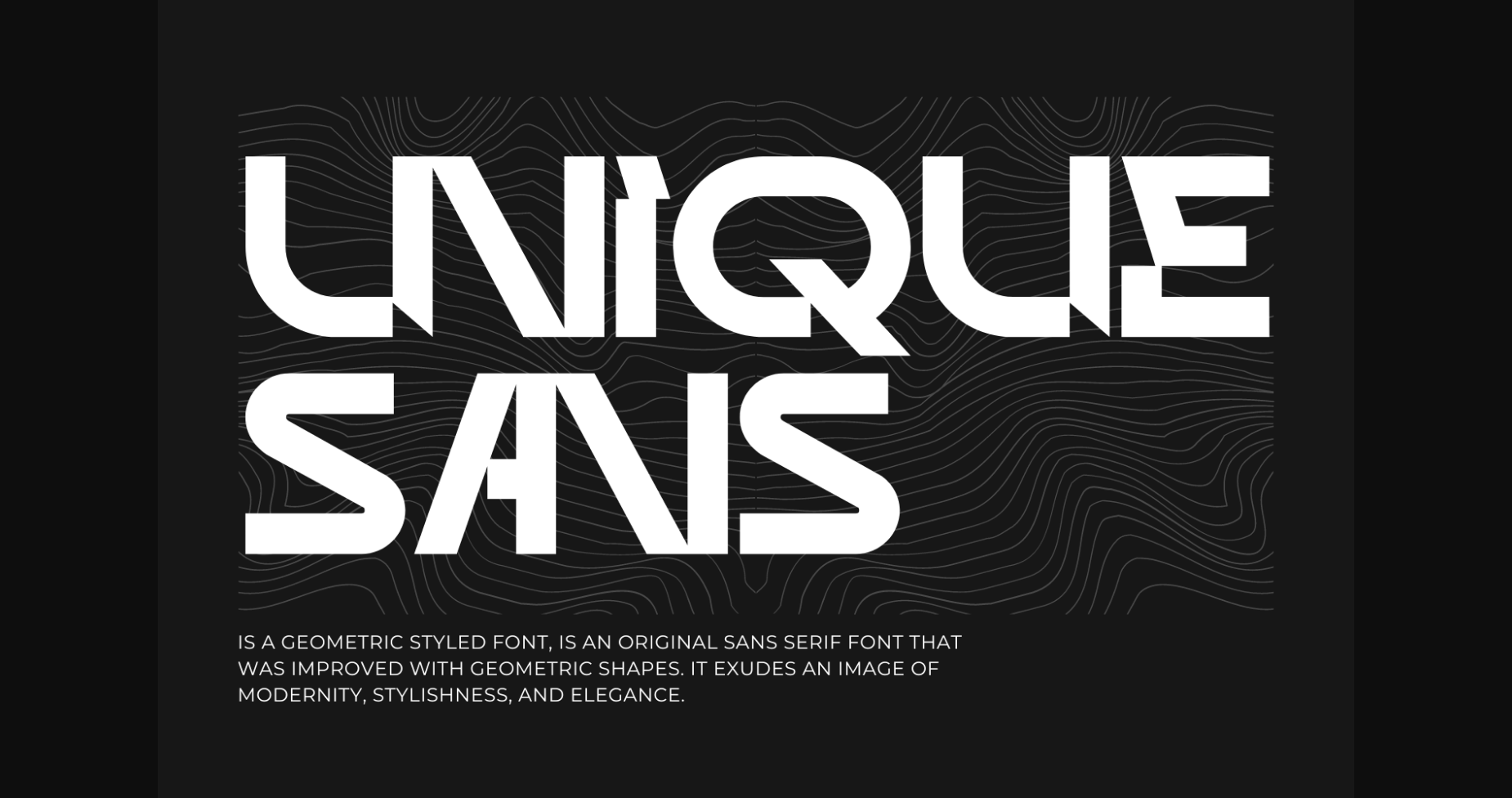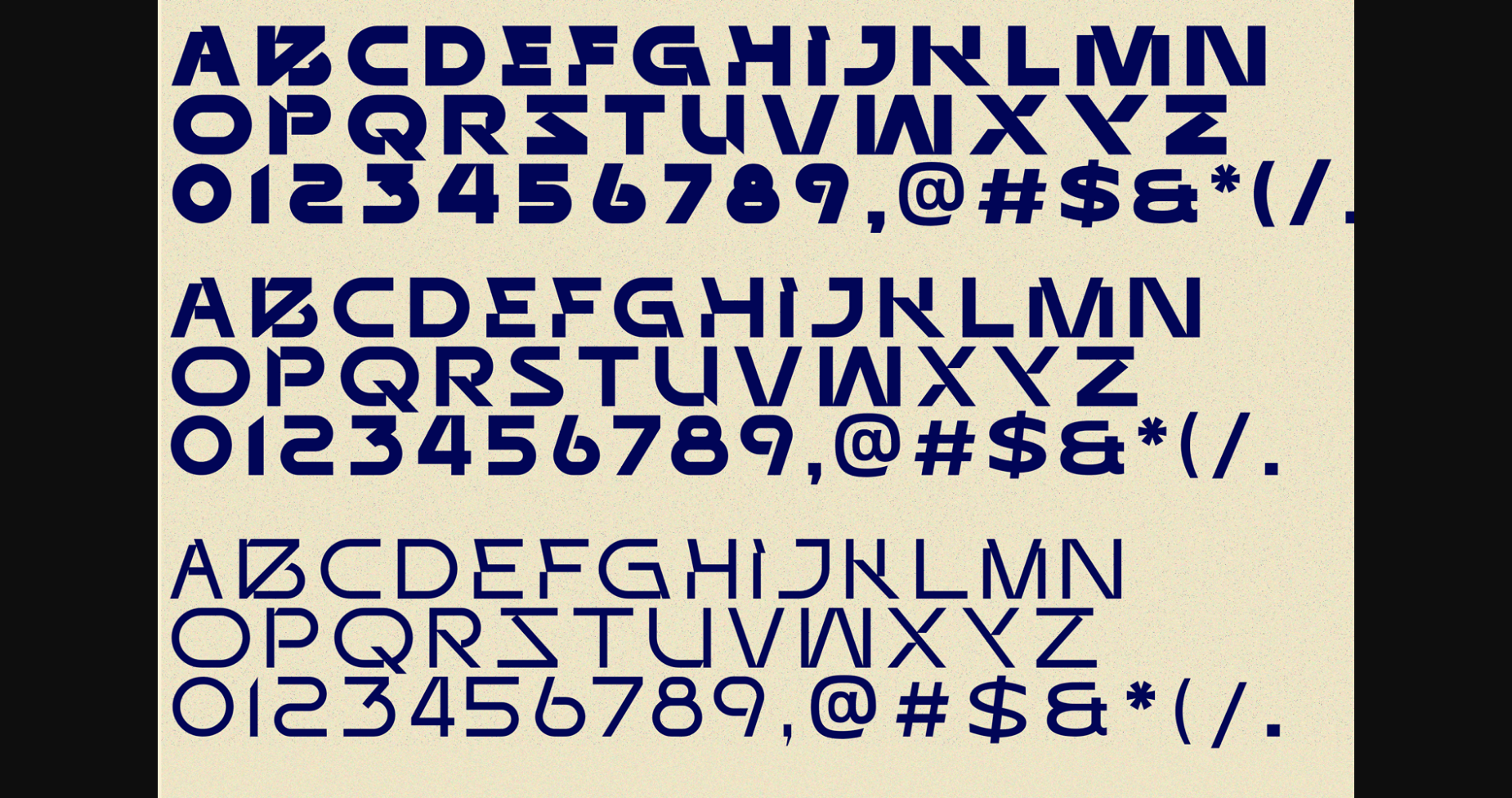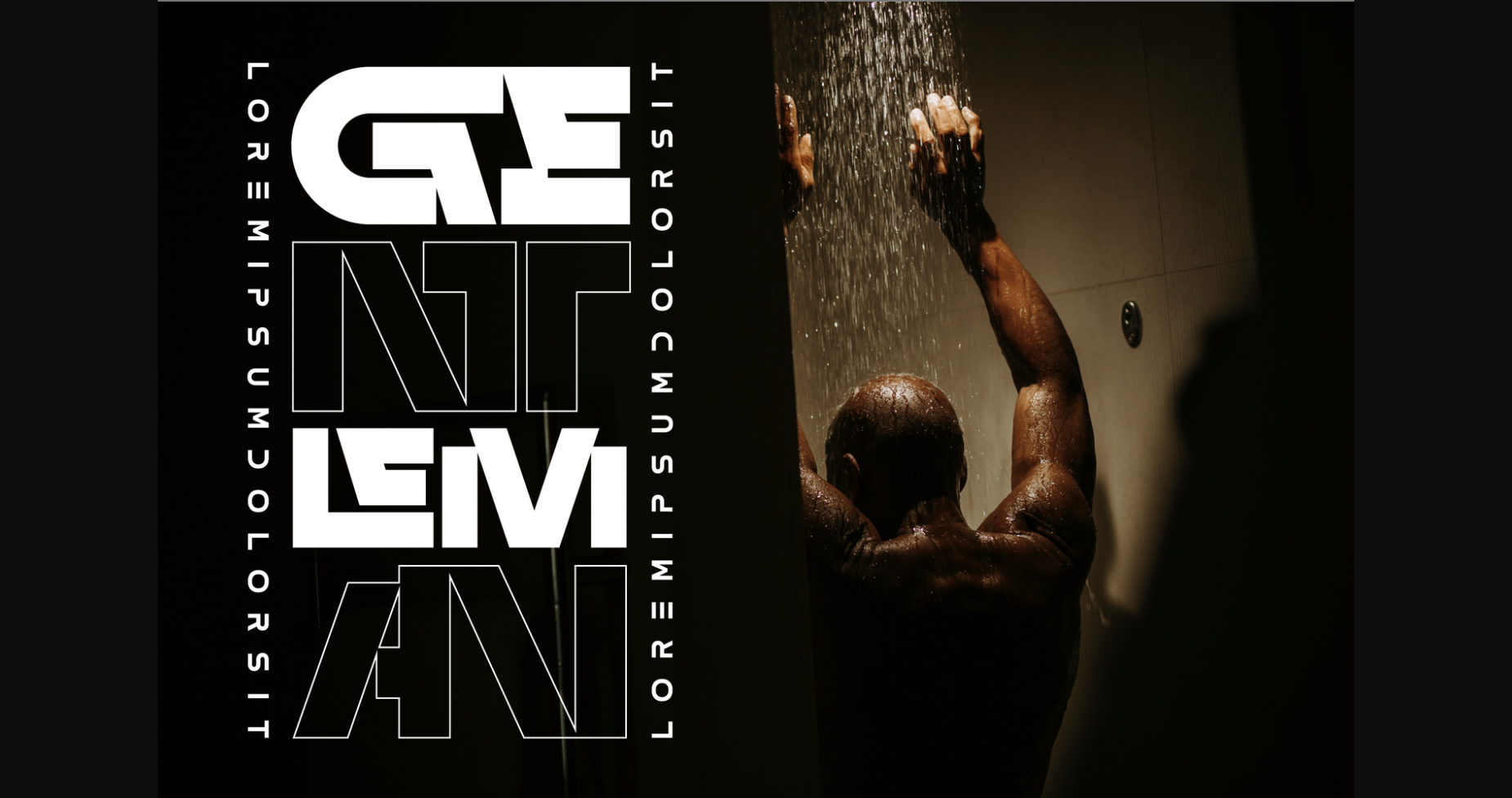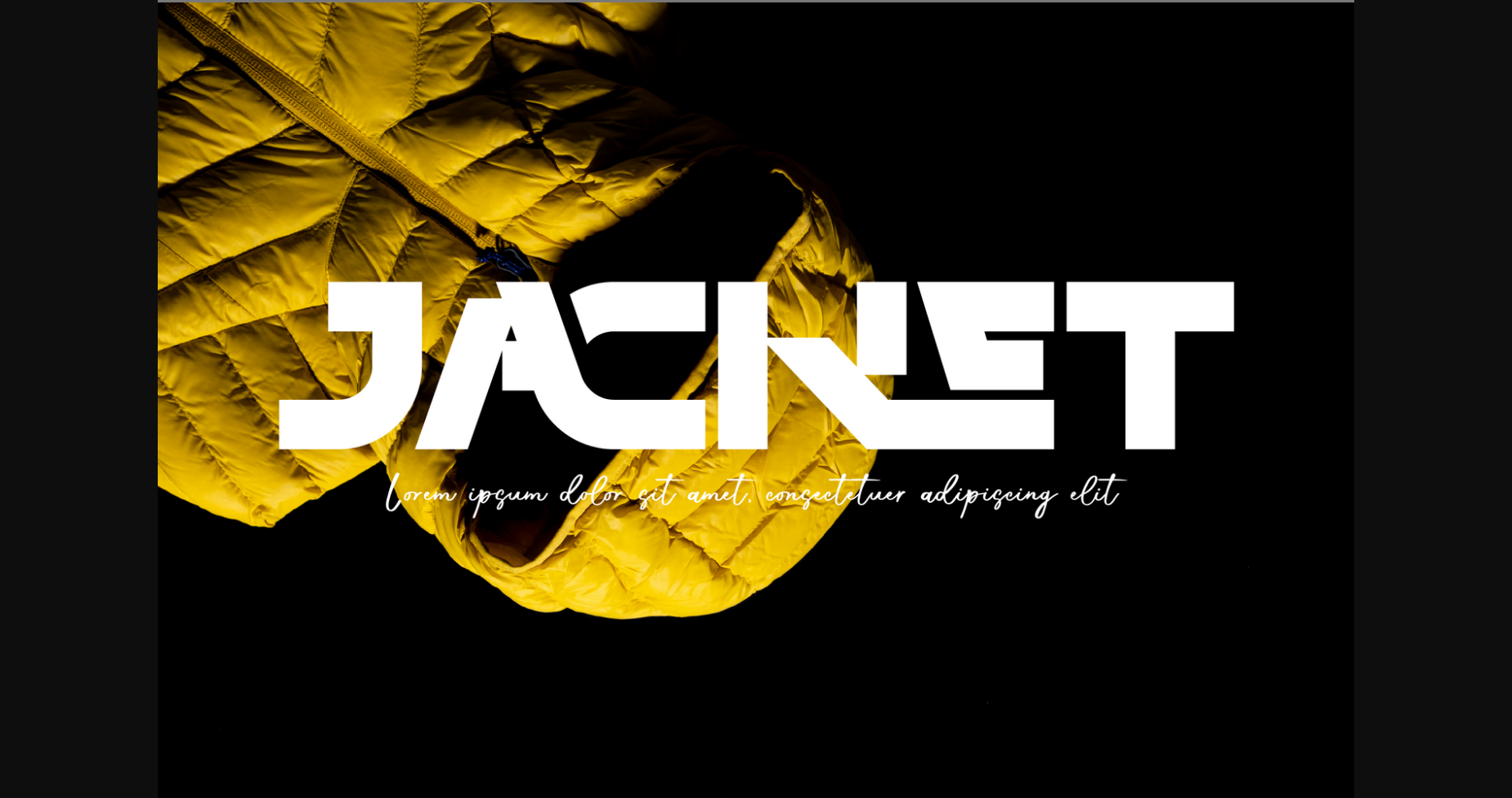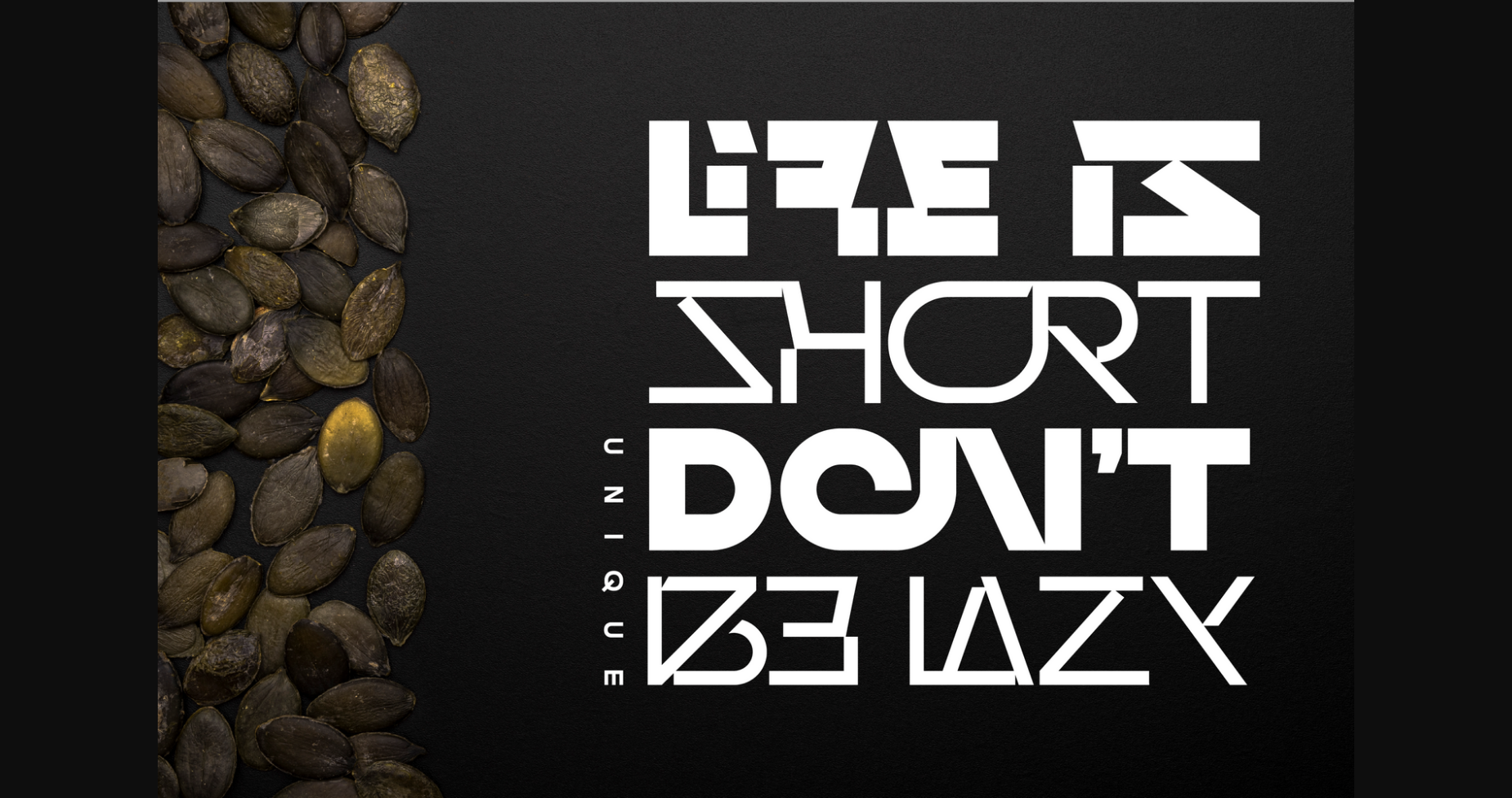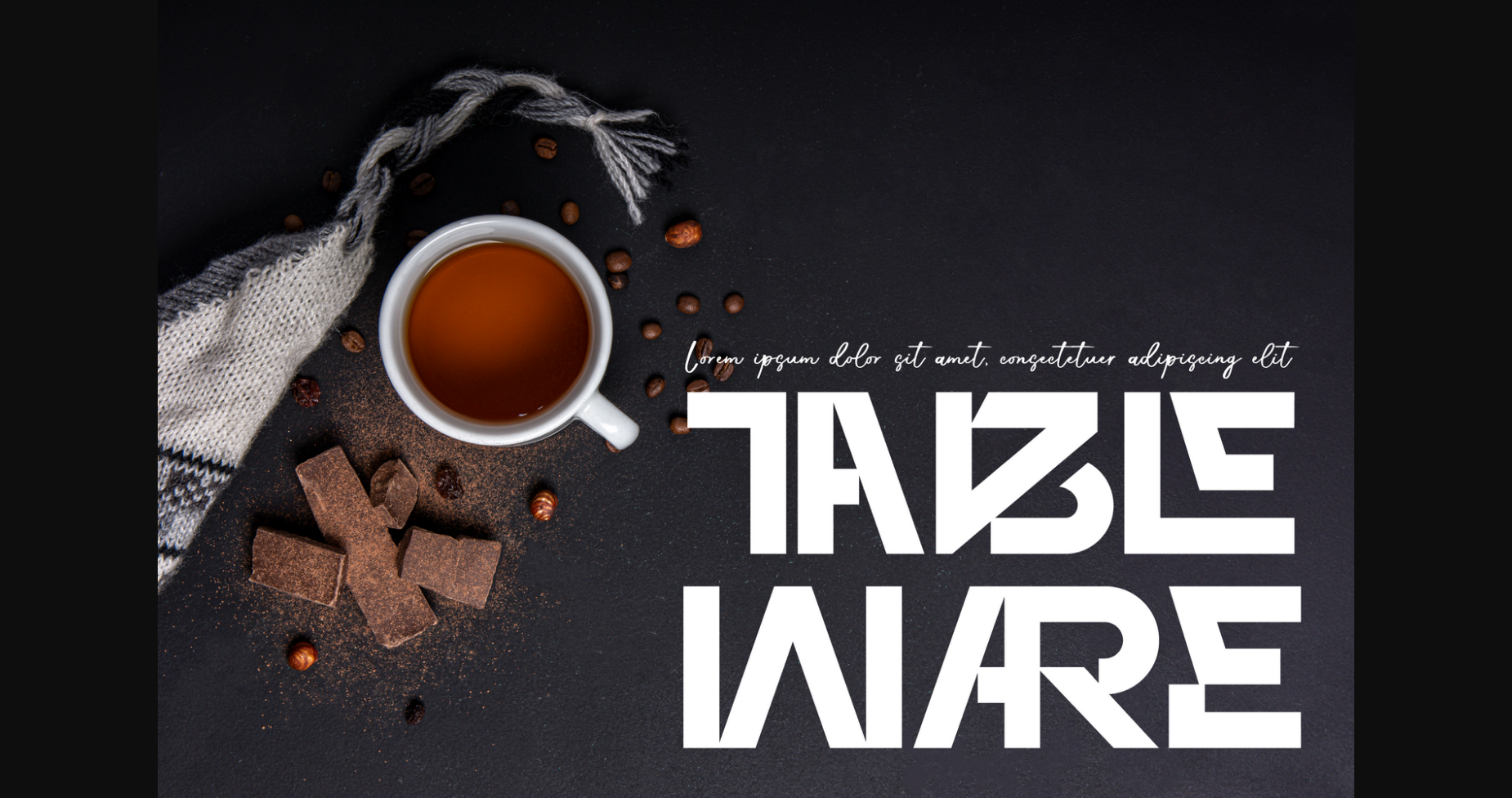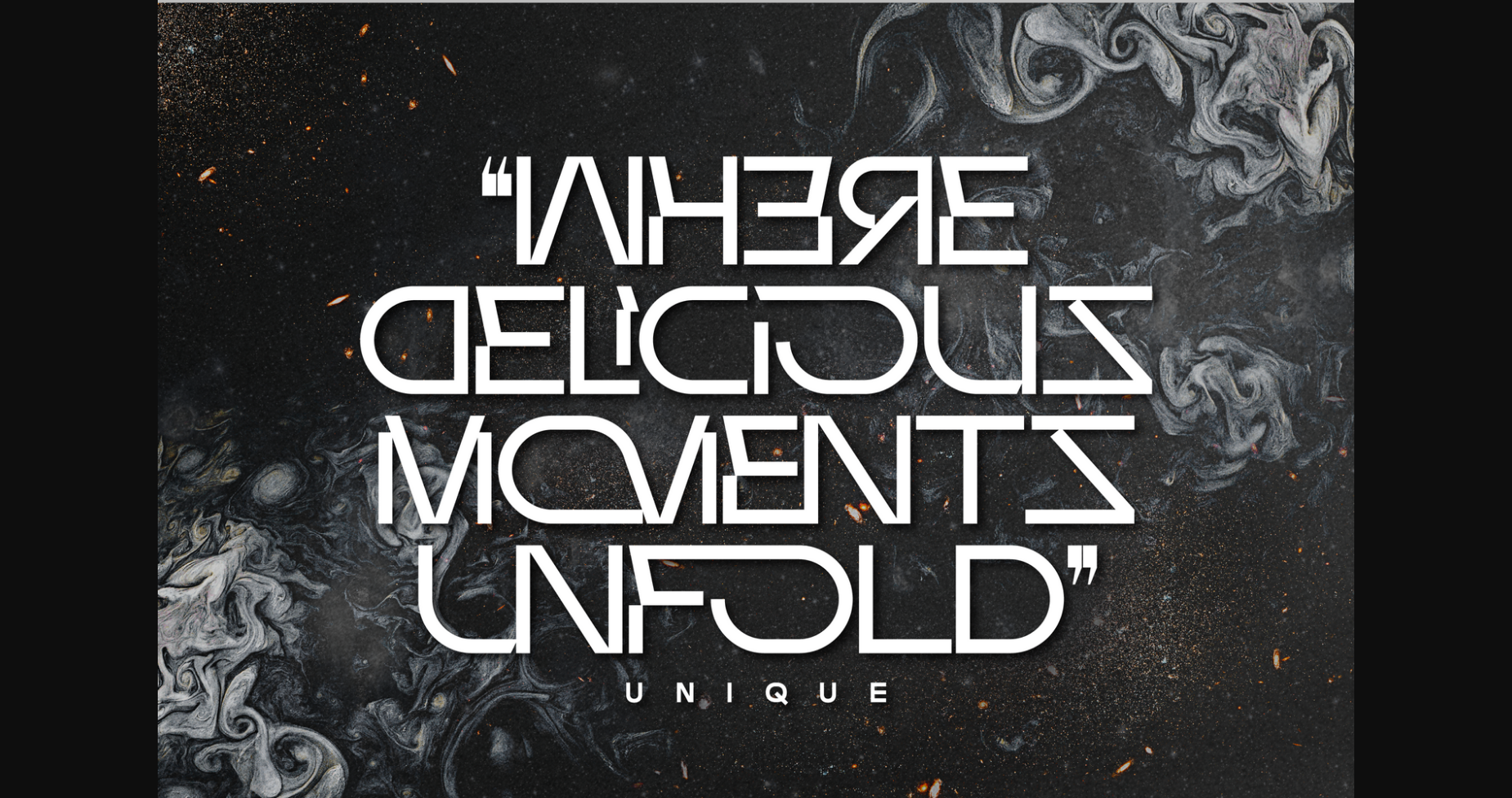
About Unique Sans Font
Unique Sans Font is a geometric-styled font, an original Sans Serif font that was improved with geometric shapes. It exudes an image of modernity, stylishness, and elegance. The geometric, near-monoline construction lends classic durability, tempered by softened edges and vibrant shapes.